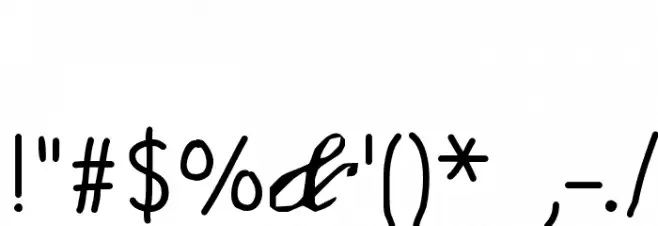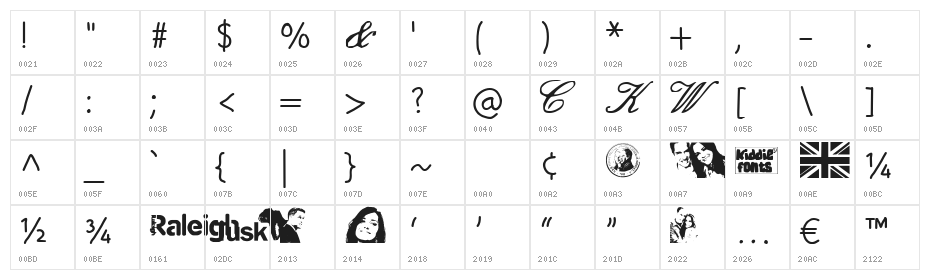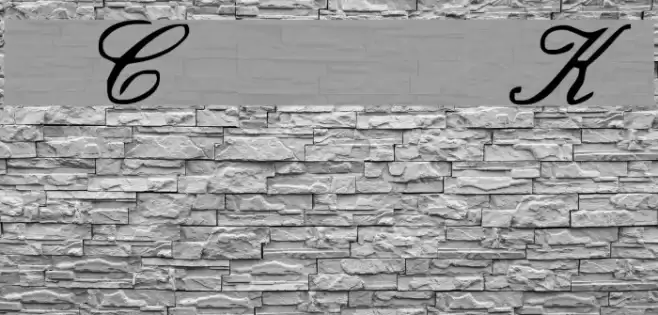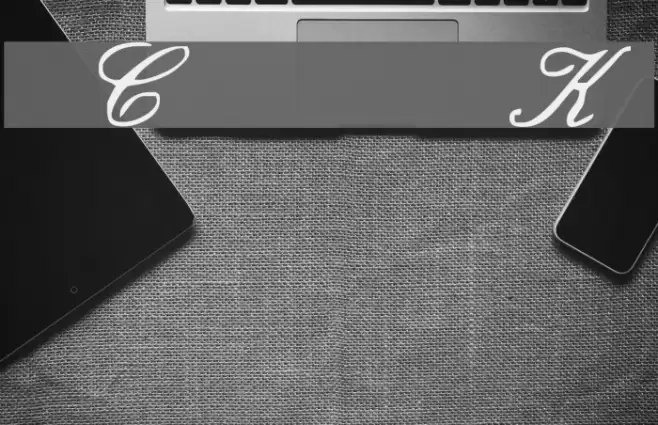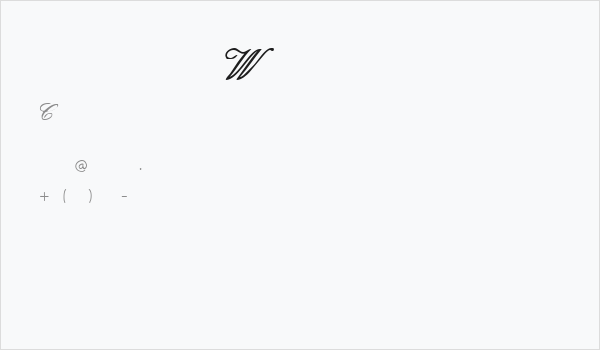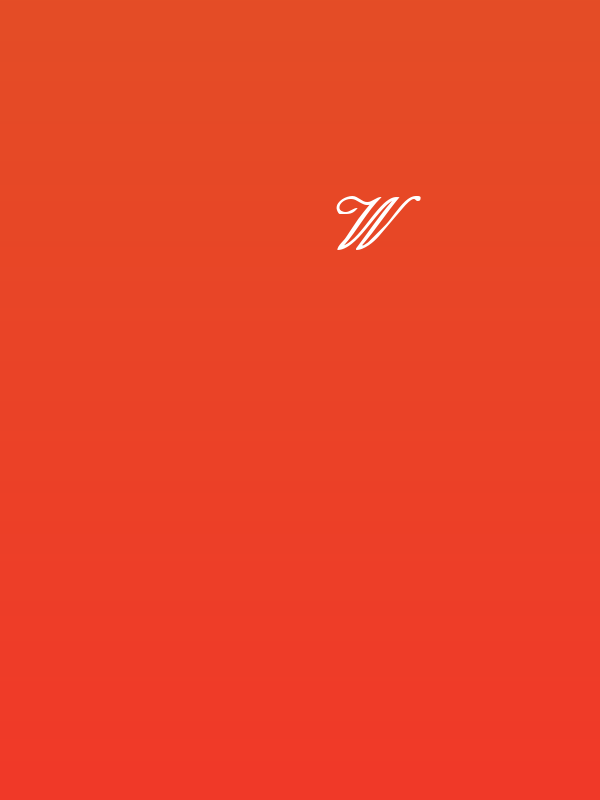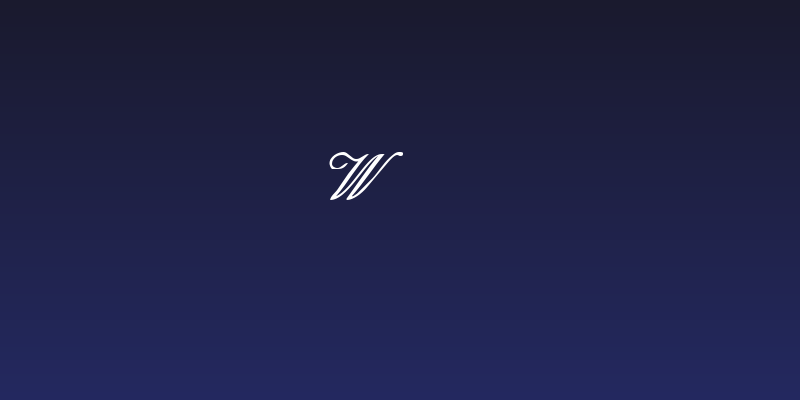
The Royal Wedding Medium Font
The Royal Wedding Medium Description
This font exudes elegance and sophistication, characterized by its flowing, cursive style that mimics the grace of handwritten script. The letters are intricately designed with smooth curves and delicate flourishes, giving it a regal and timeless appearance. The uppercase letters are particularly ornate, with sweeping lines that create a sense of grandeur. The lowercase letters maintain a consistent style, ensuring readability while preserving the font's decorative nature. The numbers and special characters are crafted with the same attention to detail, making them suitable for a variety of formal applications.